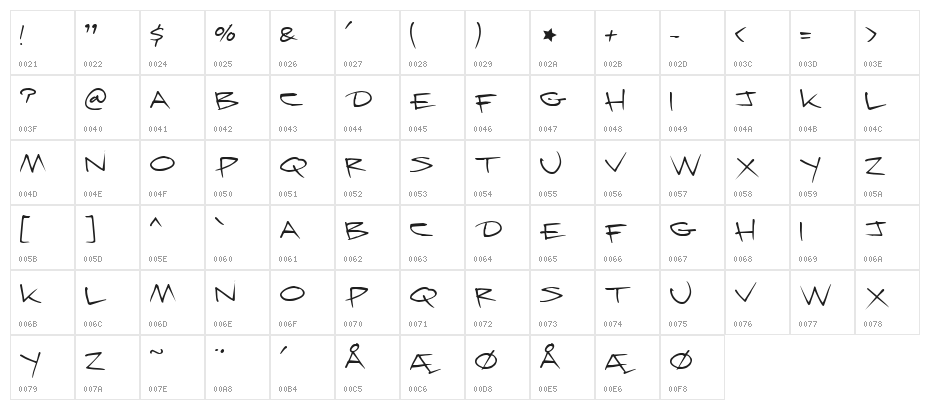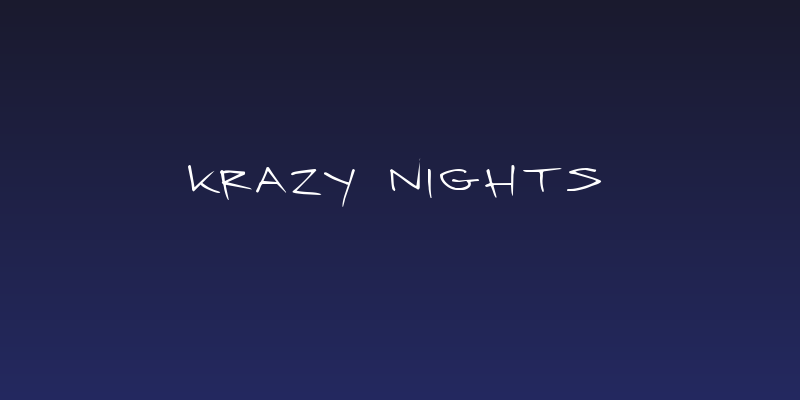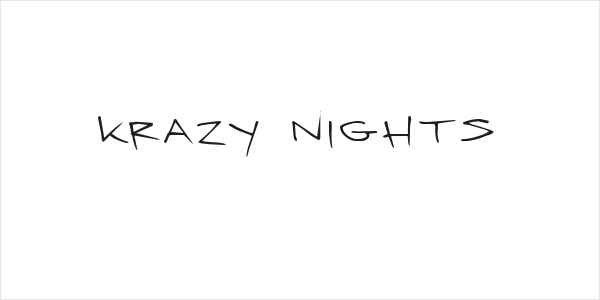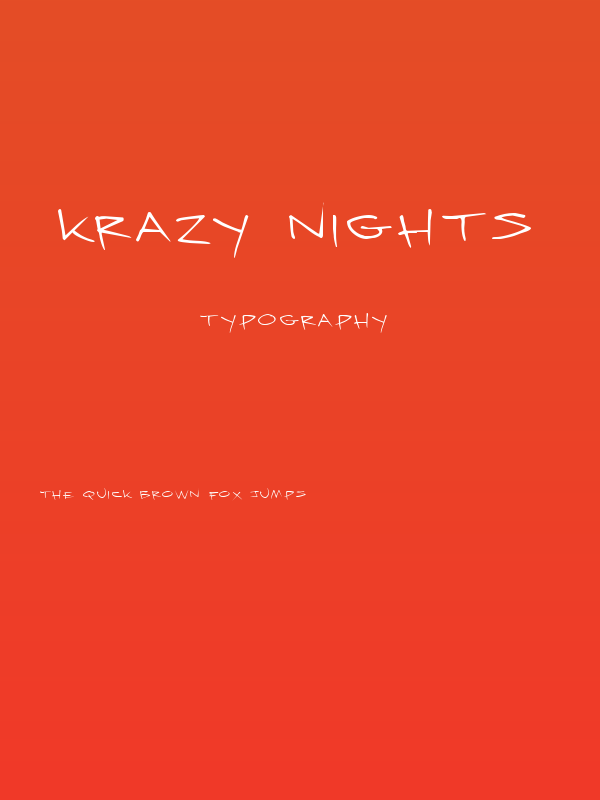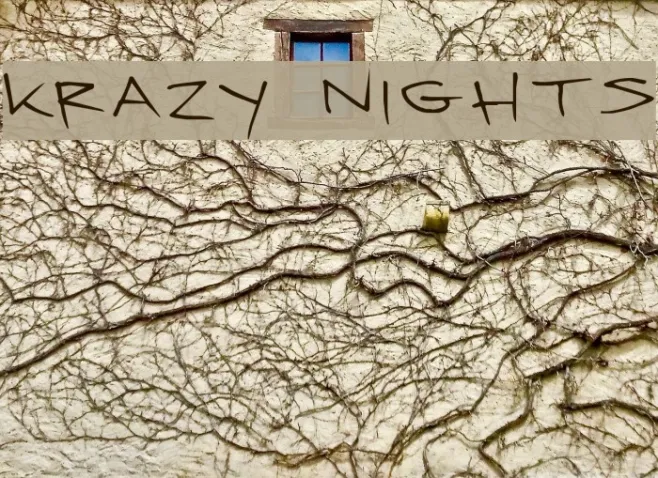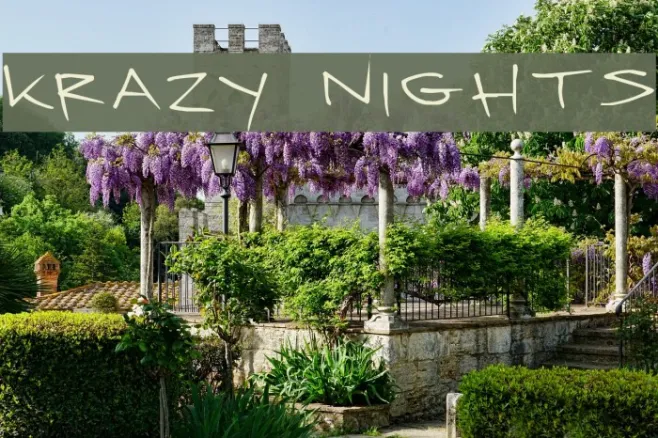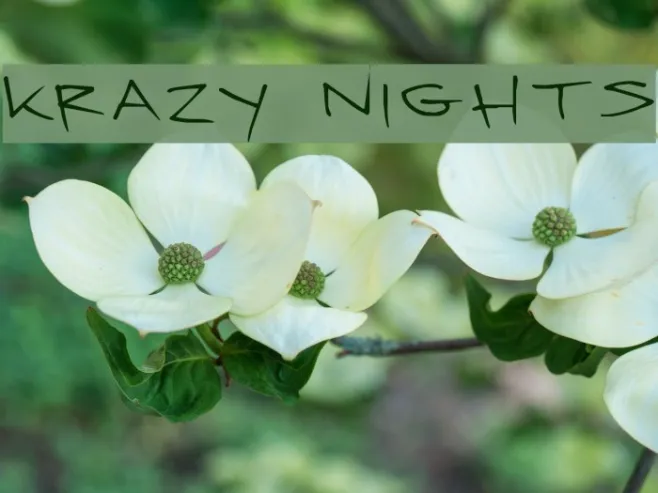
Krazy Nights Font
Krazy Nights Description
This font exudes a playful and energetic vibe, characterized by its irregular, hand-drawn strokes that give it a lively and spontaneous appearance. The letters are slightly tilted and vary in size, adding to the whimsical nature of the design. The strokes are sharp and angular, with a dynamic flow that suggests movement and excitement. This style is reminiscent of graffiti or street art, making it ideal for projects that require a bold and unconventional look. The font includes a full set of uppercase and lowercase letters, numbers, and a variety of special characters, ensuring versatility in its application.
| Proposed Projects | Perfect for event posters, music album covers, children's book titles, or any creative project that needs a bold, lively touch. |